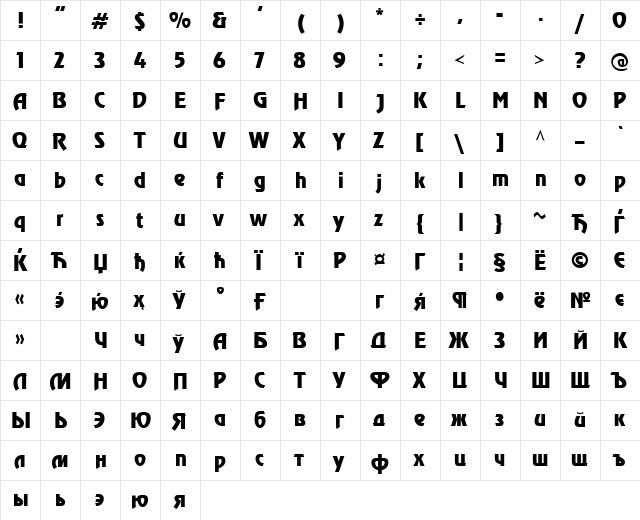
CyrillicRevue Normal
Design Context for CyrillicRevue Typeface
CyrillicRevue takes a measured approach to typography — its balanced proportions and neutral character make it a reliable workhorse for both digital and print work.